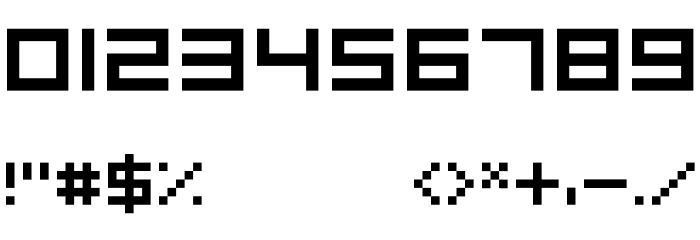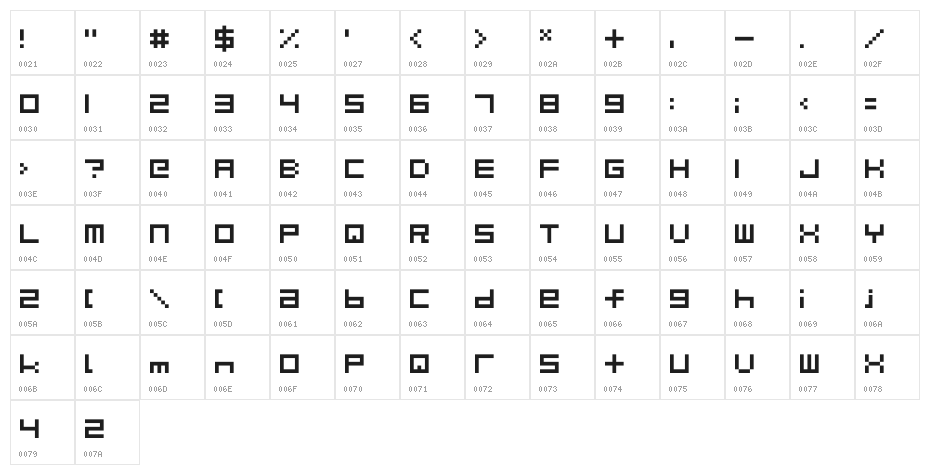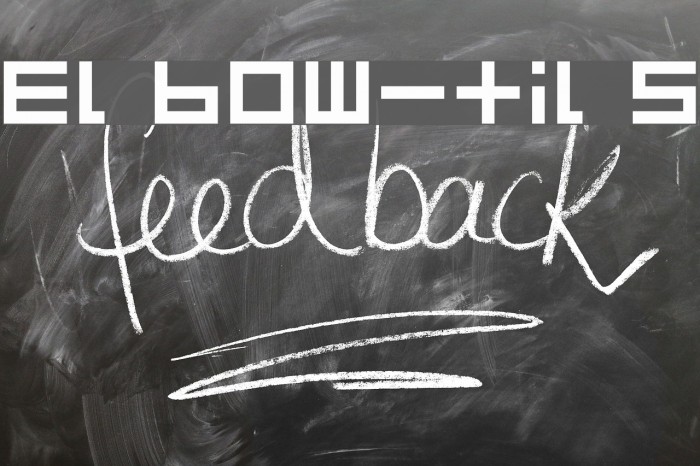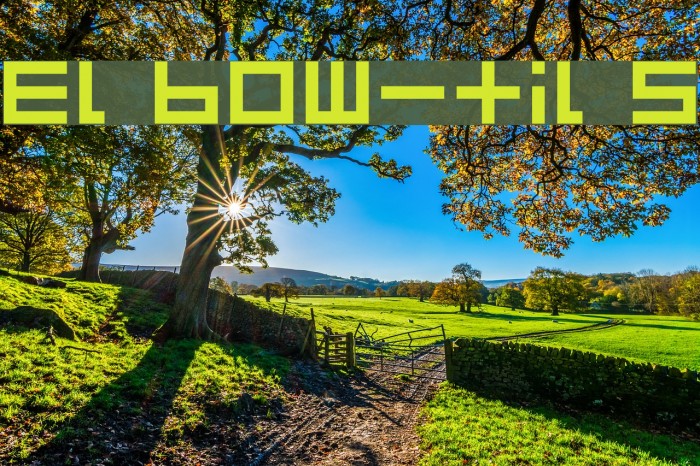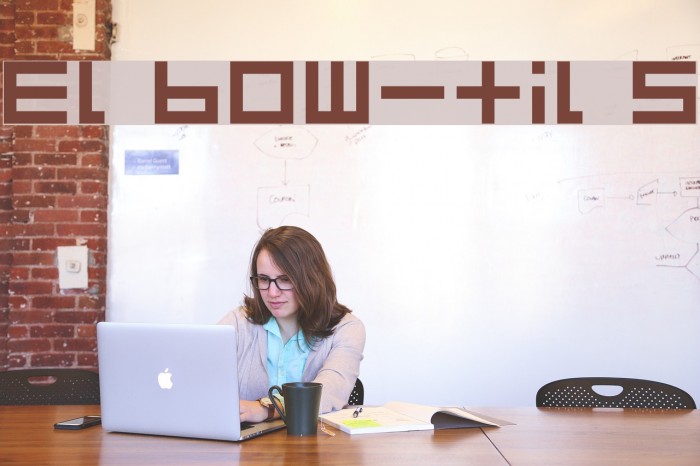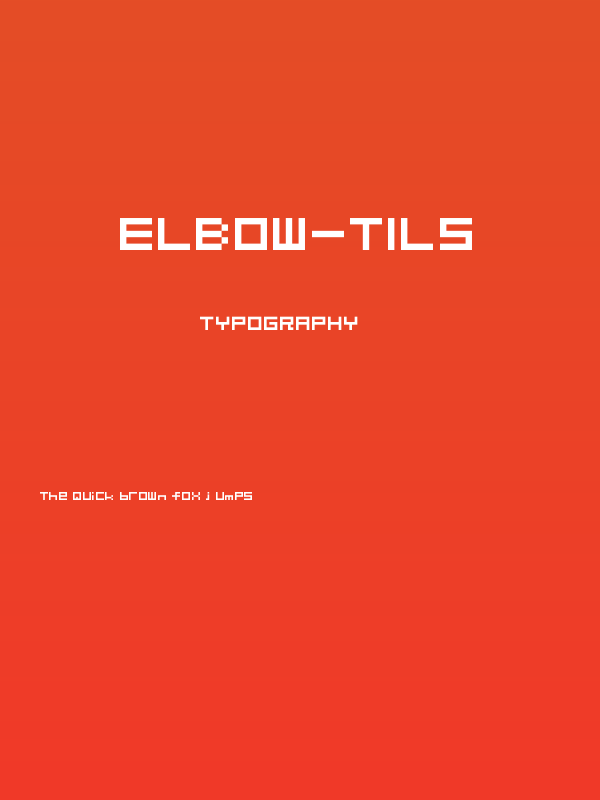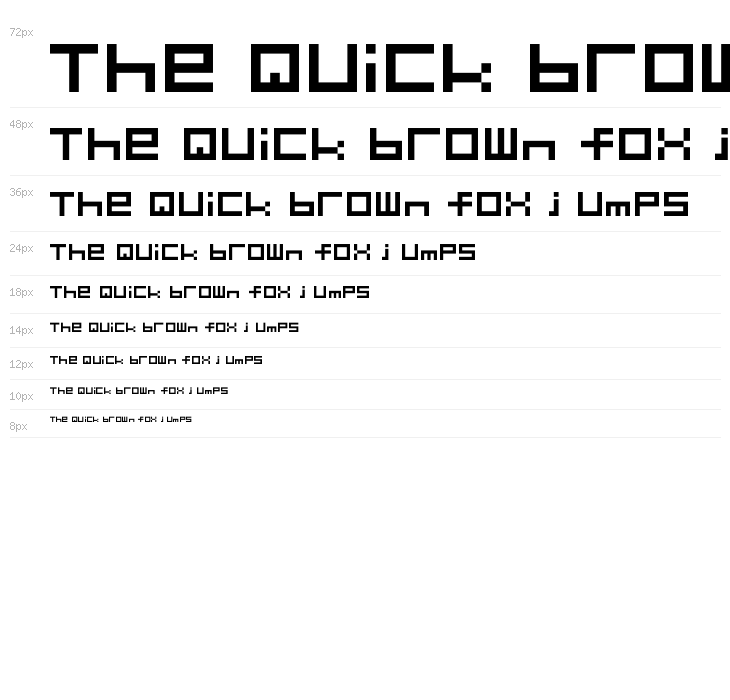
Elbow-tils Font
Elbow-tils Description
This font features a bold, geometric design with a pixelated, block-like appearance. The characters are uniformly structured with sharp angles and straight lines, giving it a digital, retro feel reminiscent of early computer graphics or video game typography. The uppercase and lowercase letters maintain a consistent height, contributing to a monospaced look, although the font is not strictly monospaced. The numerals and special characters follow the same design principles, ensuring visual harmony across all glyphs. The font's distinct style makes it highly legible at various sizes, though it is particularly striking in larger formats.
| Proposed Projects | Ideal for video game design, tech-themed posters, digital art projects, or any creative work that requires a retro or digital aesthetic. |